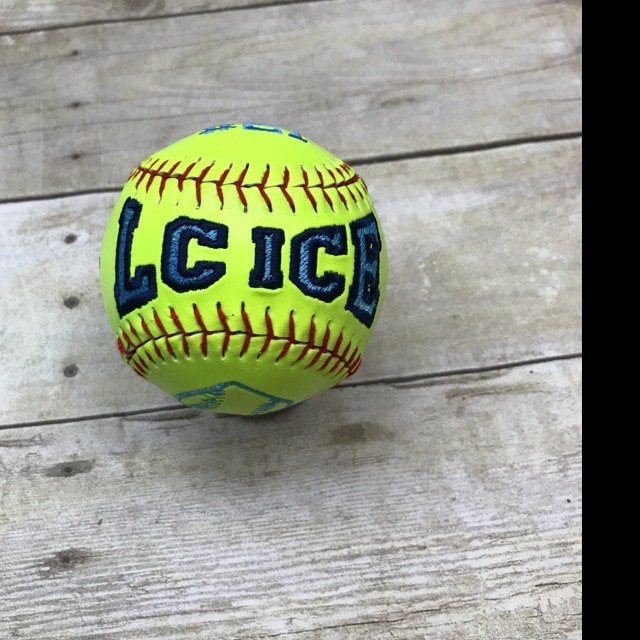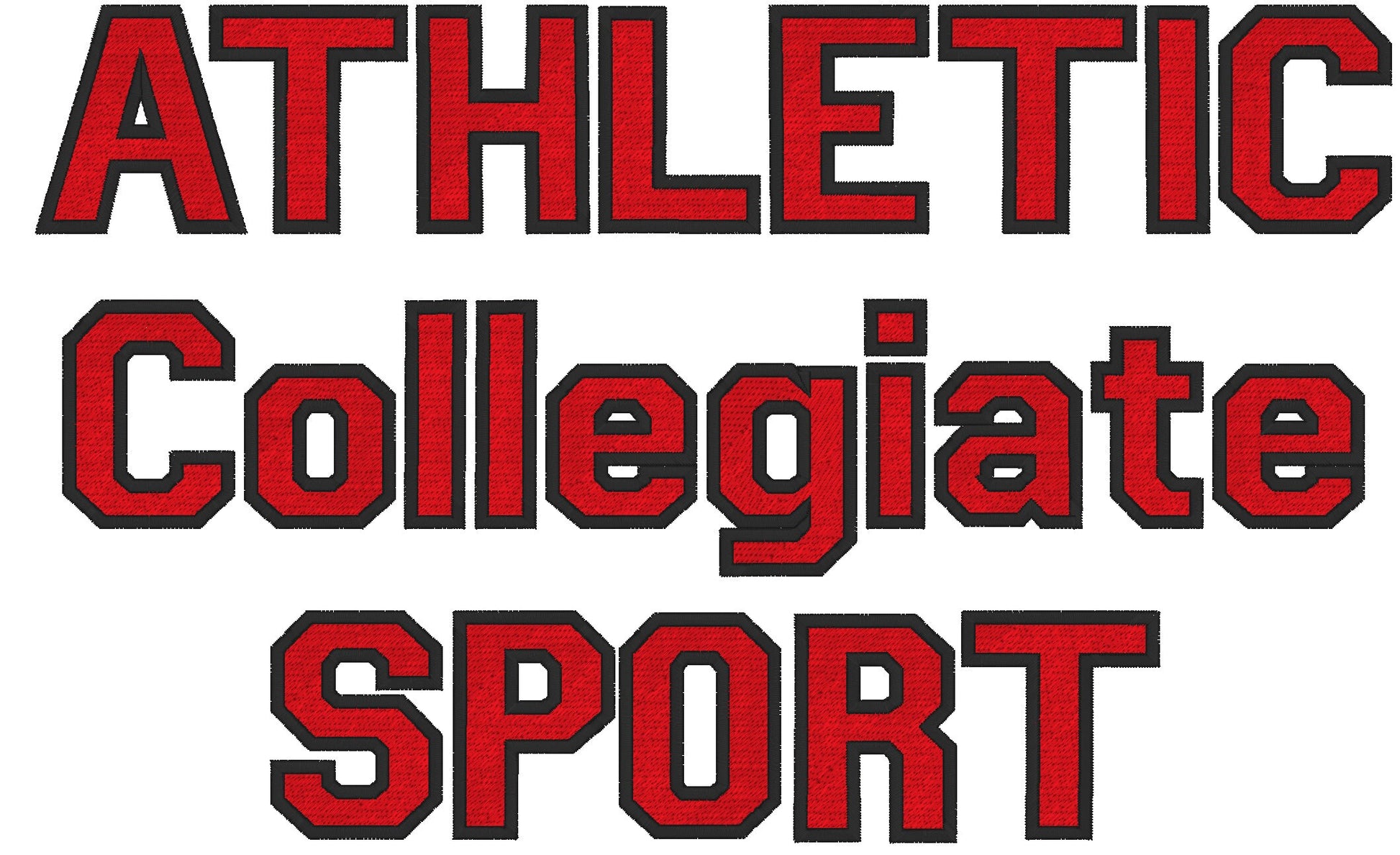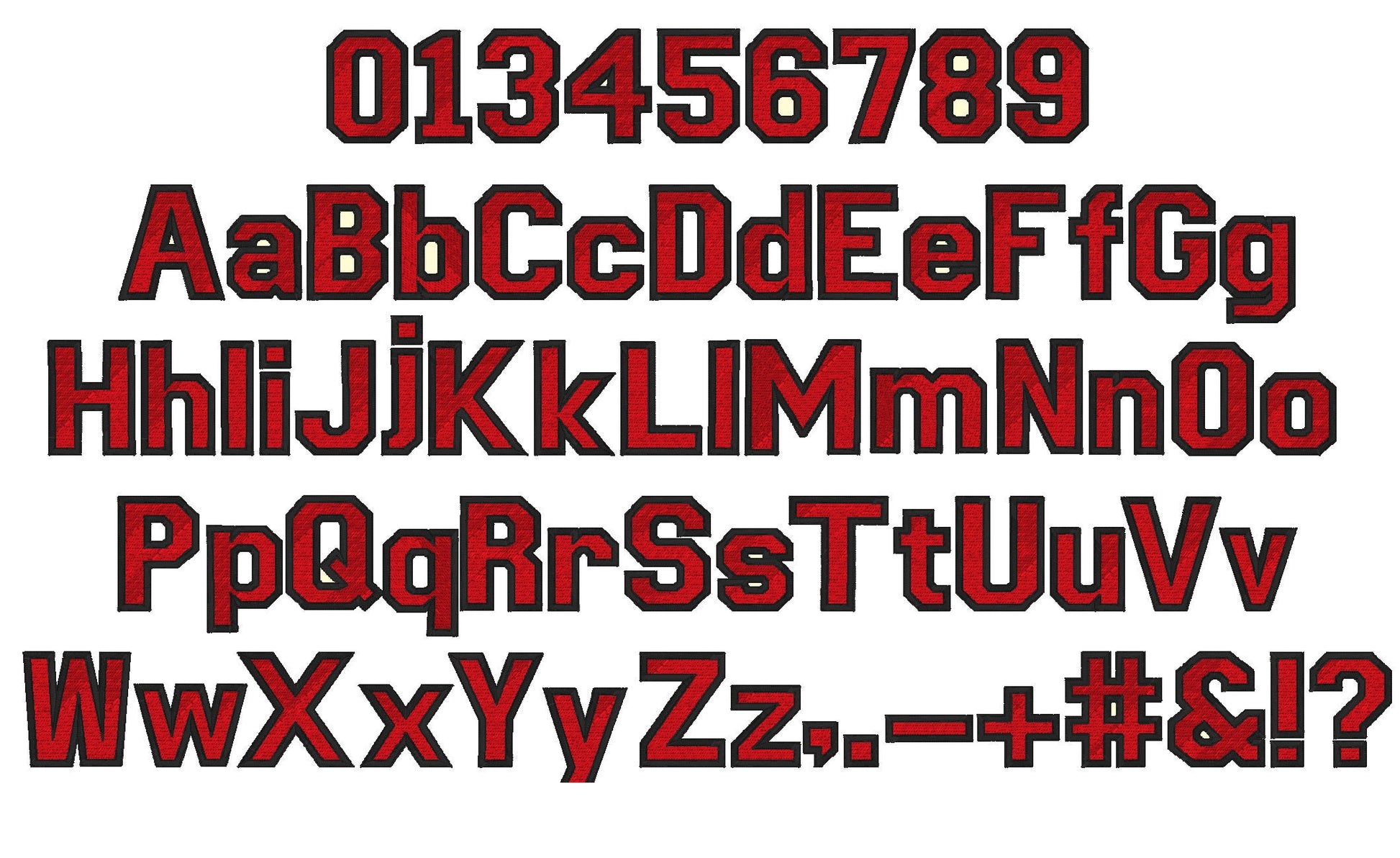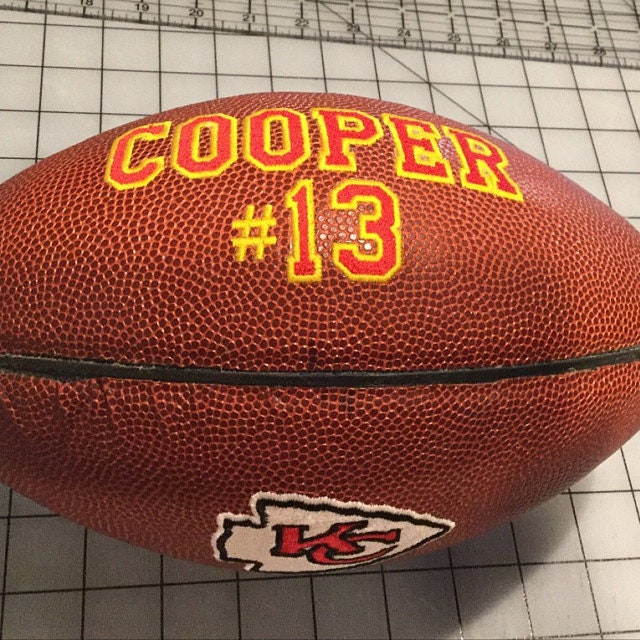
Classic Varsity Collegiate Font
Included: Uppercase A-Z, Numbers 0-9, Punctuation
A simple, classic varsity collegiate font in fill stitch with a contrast outline. Made for team shirts, jerseys, caps and sports bags.
One set of letters A to Z, numbers 0 to 9 and punctuation, including &, question mark, exclamation mark, plus sign and dash. Sizes 0.8, 1, 1.5, 2, 2.5, 3, 3.5 and 4 inches.
• Classic varsity collegiate font, fill stitch
• Letters A to Z, numbers 0 to 9, punctuation
• 8 sizes, 0.8 to 4 in